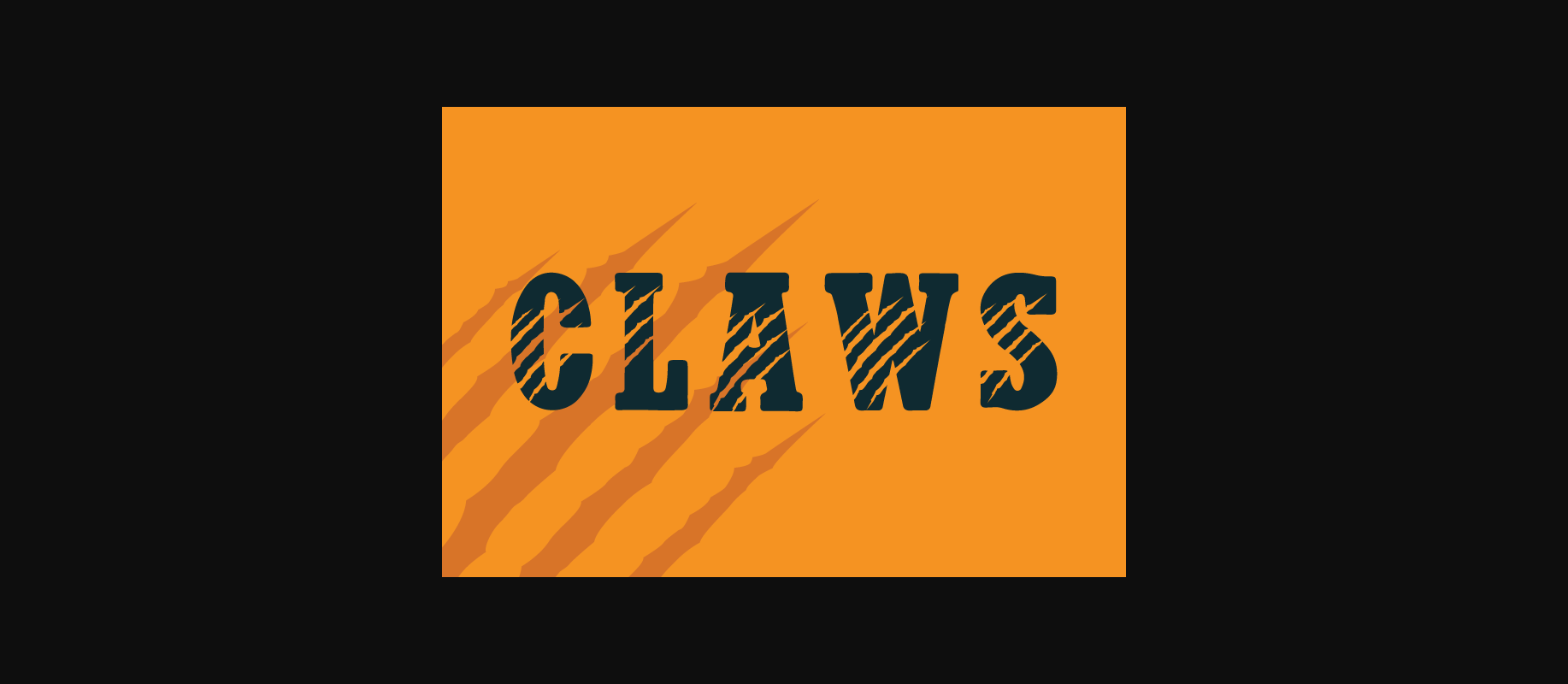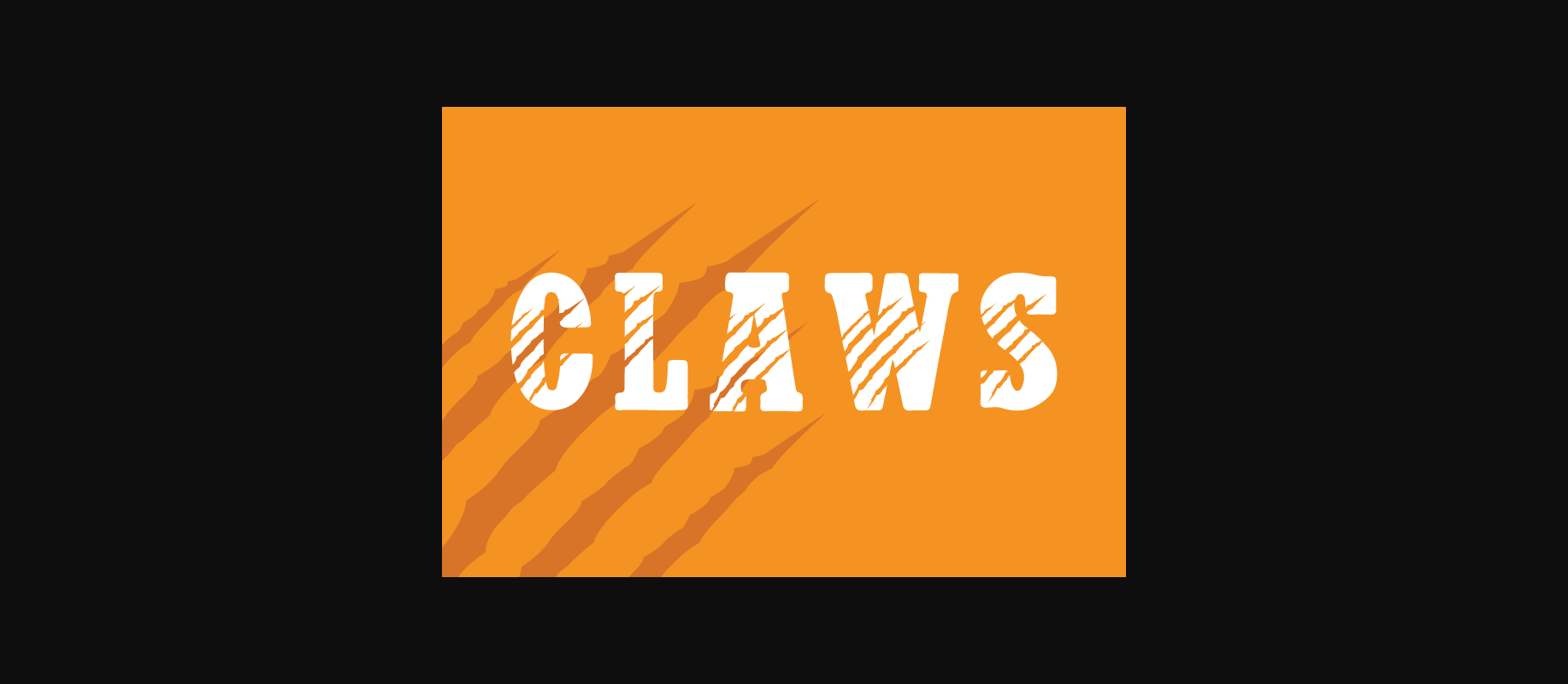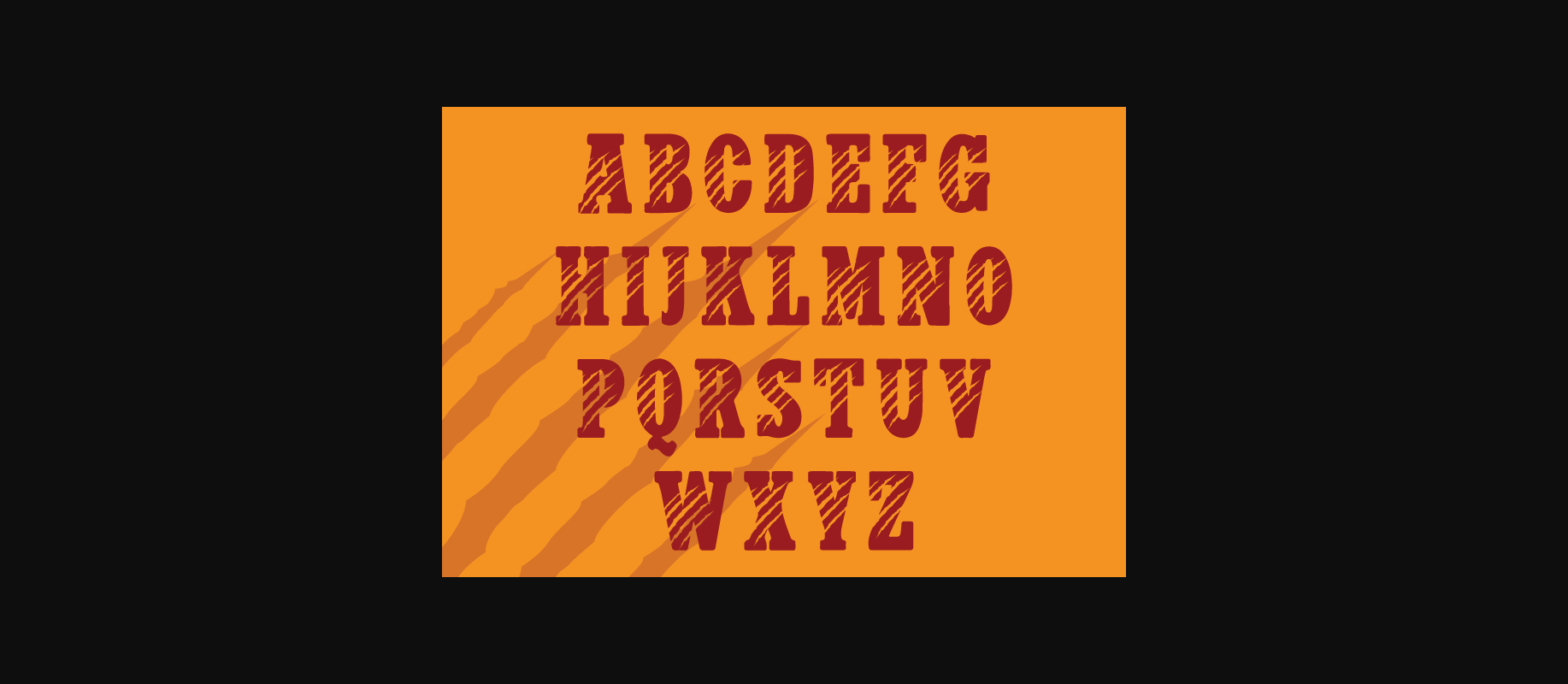
Claws Font
About Claws Font
Claws font prowls across the page with an untamed elegance, each letter bearing the sharp grace of a feline’s stride. Its strokes mimic the sinuous movement of a predator, capturing the raw energy and sleek contours of claw marks etched into parchment. With each character, Claws font leaves an indelible impression, a testament to the primal beauty found in the written word.